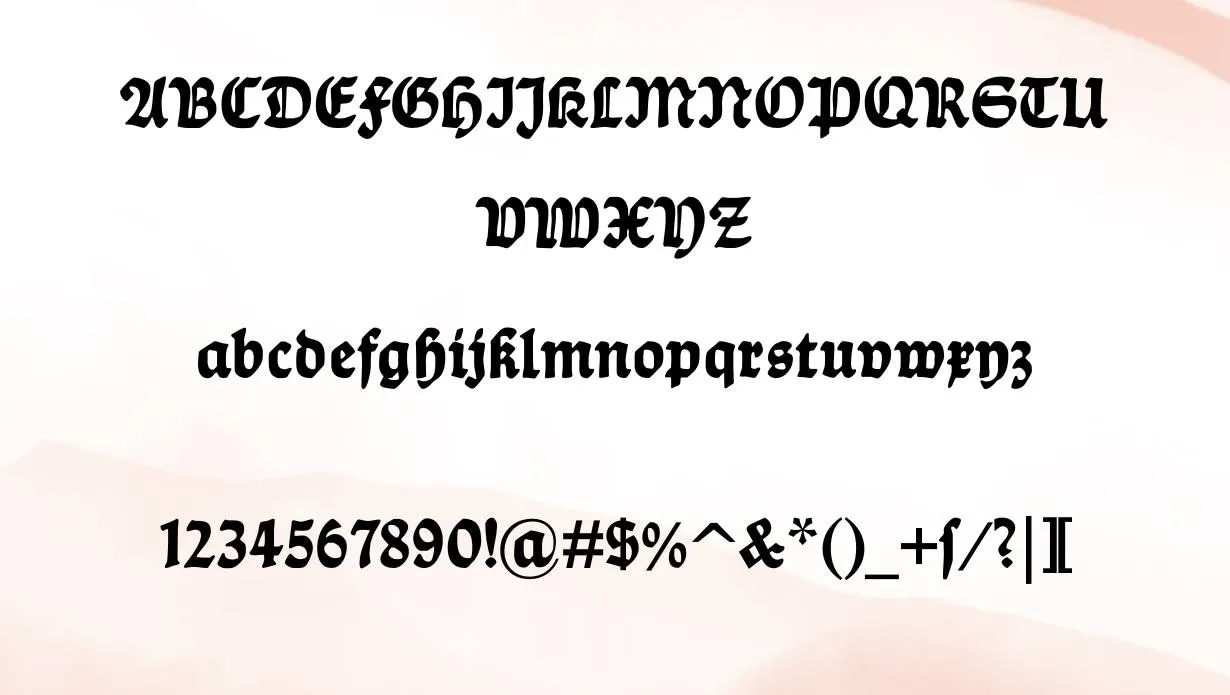
The Ballade Bold font emanates strength and impact with its bold and assertive style. In Adobe Photoshop, it crafts powerful and attention-grabbing designs that demand notice.
| Name | Ballade Bold Font |
| Designer | Marcelo Reis Melo |